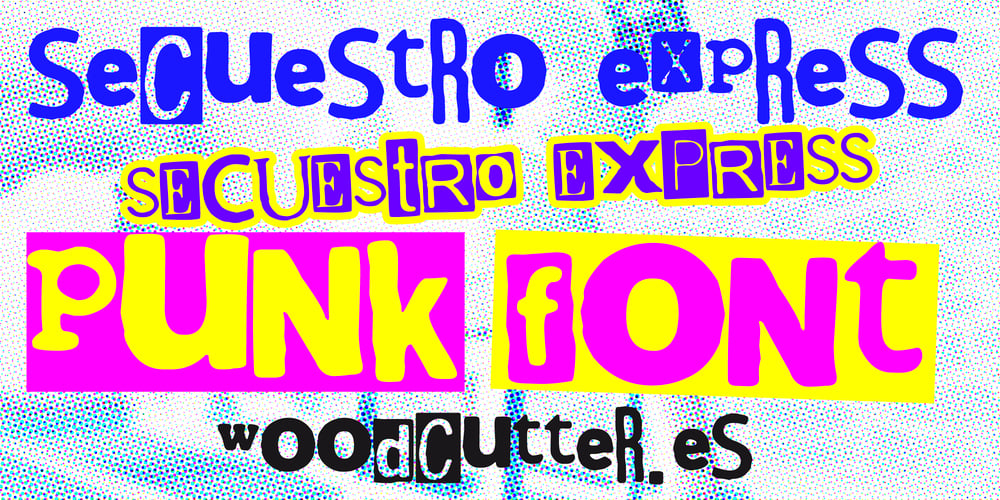
Secuestro Express
Secuestro Express font
Secuestro Express Font Family was designed by Jordi Manero and published by Woodcutter. Secuestro Express contains 1 styles and family package options. “Secuestro Express” is a font that combines chaos and rebellion in every character. Its letters, completely distorted and unique, resemble cutouts from different newspapers, evoking the aesthetic of ransom notes or the graphic style of the punk movement. Each symbol has its own disordered appearance with a defiant attitude, making it perfect for conveying dark, chaotic, or provocative messages. This typeface is ideal for projects seeking a raw, unconventional look, from punk posters to thriller covers. “Secuestro Express” stands out for its anarchic energy and striking visual impact.